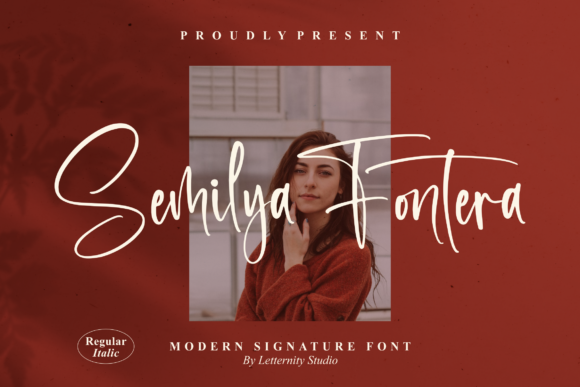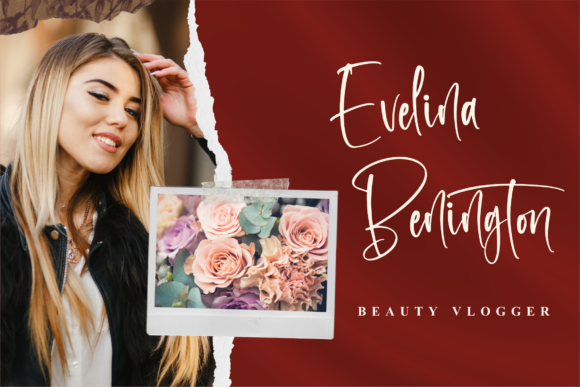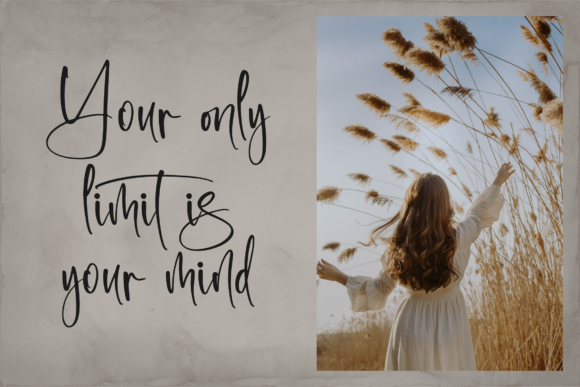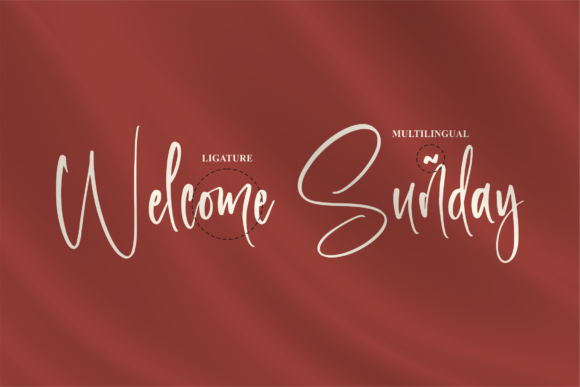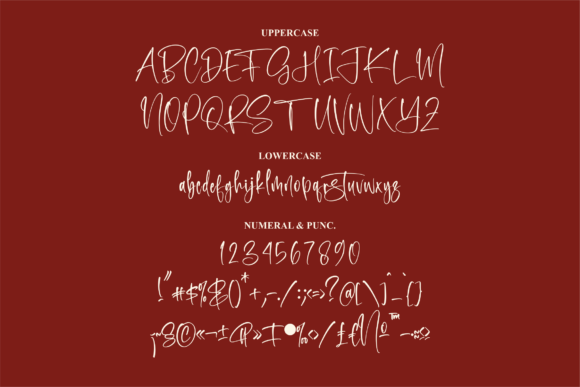
Semilya Fontera Font
About Semilya Fontera Font
Semilya Fontera is a lovely script font featuring charming, playful characters that seem to dance along the baseline. Add this font to your most creative ideas, and notice how it makes them stand out!